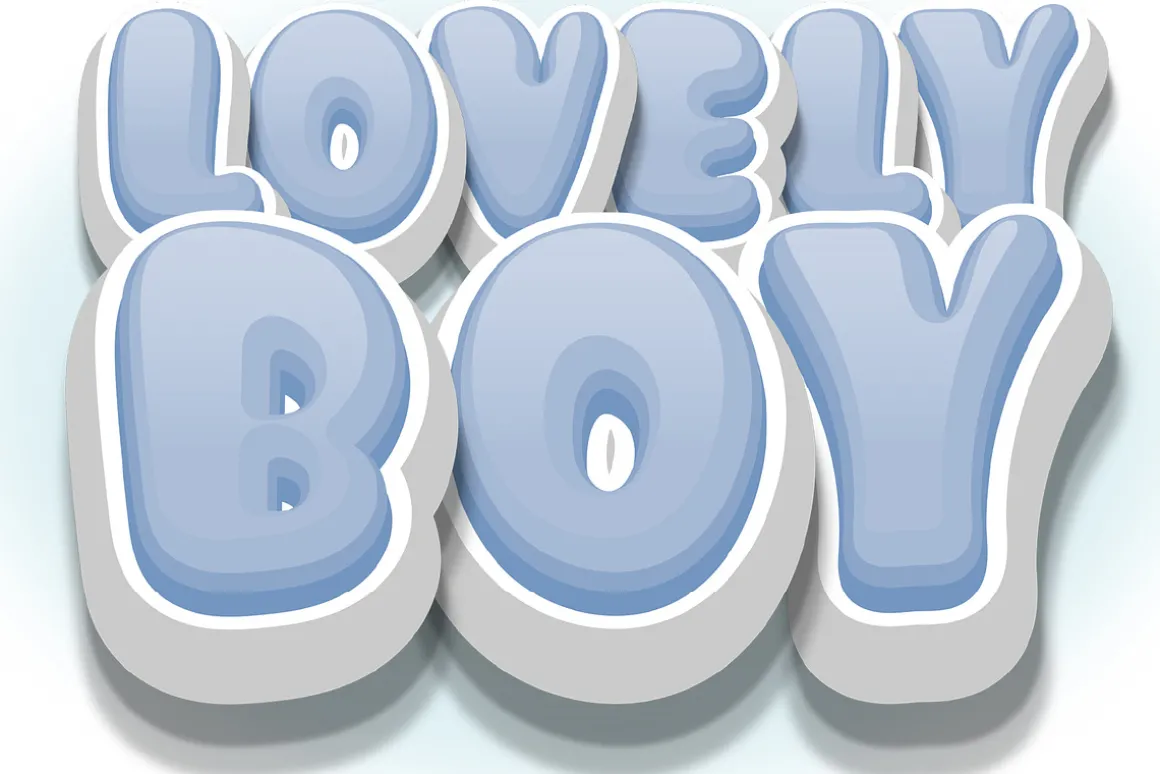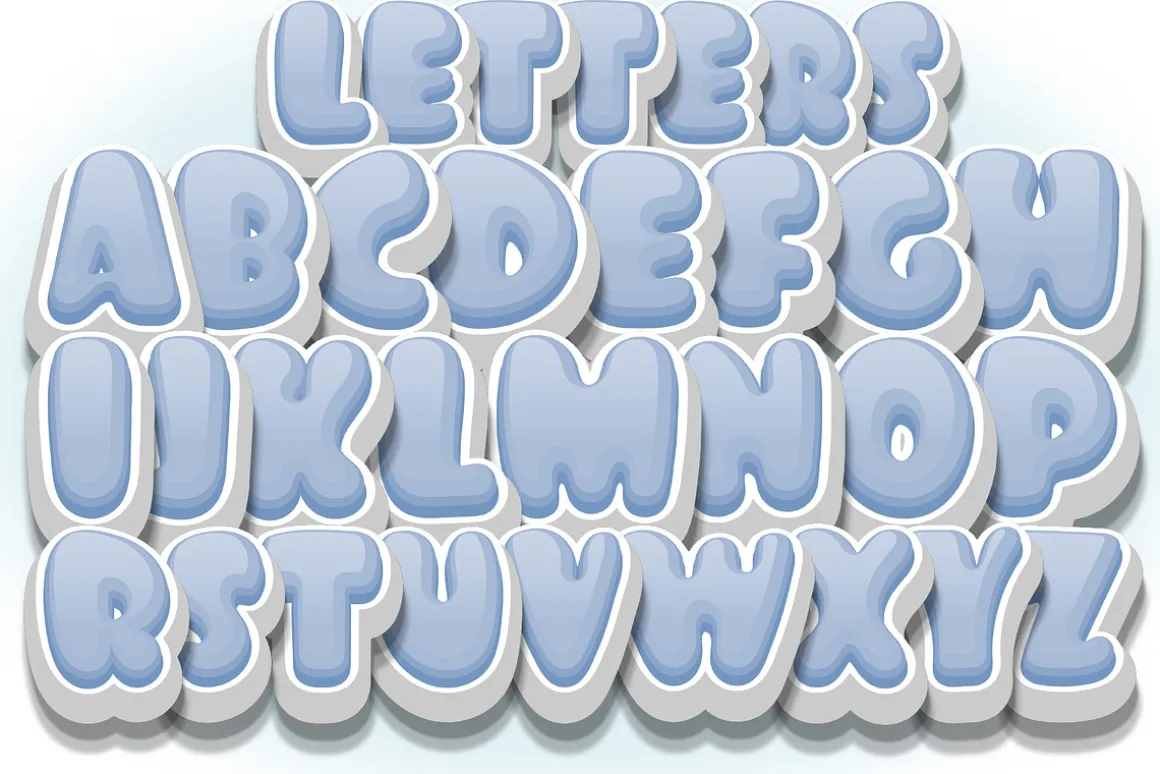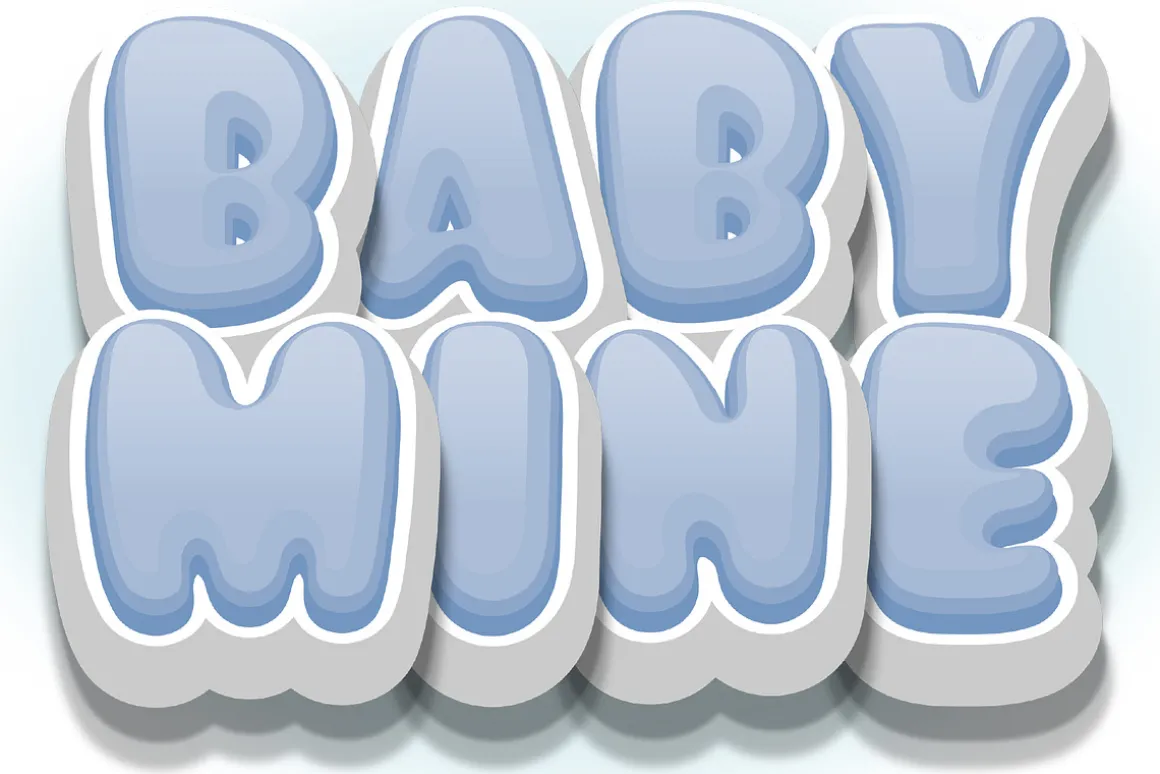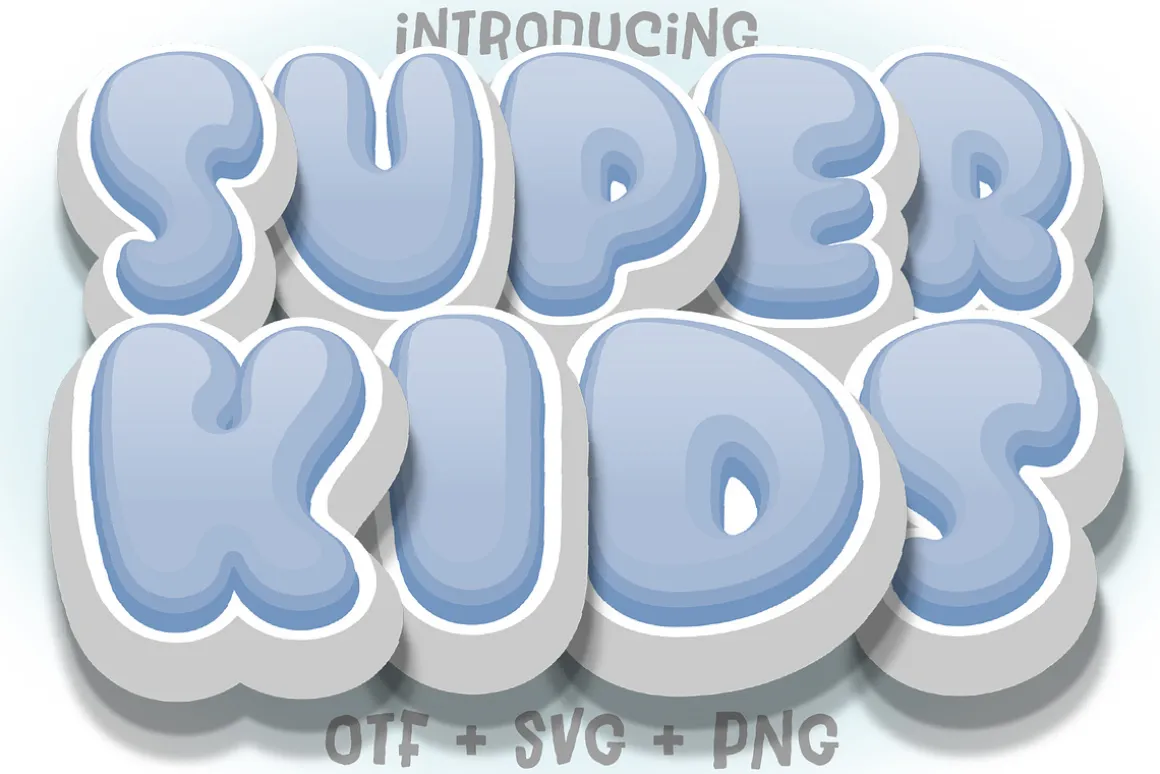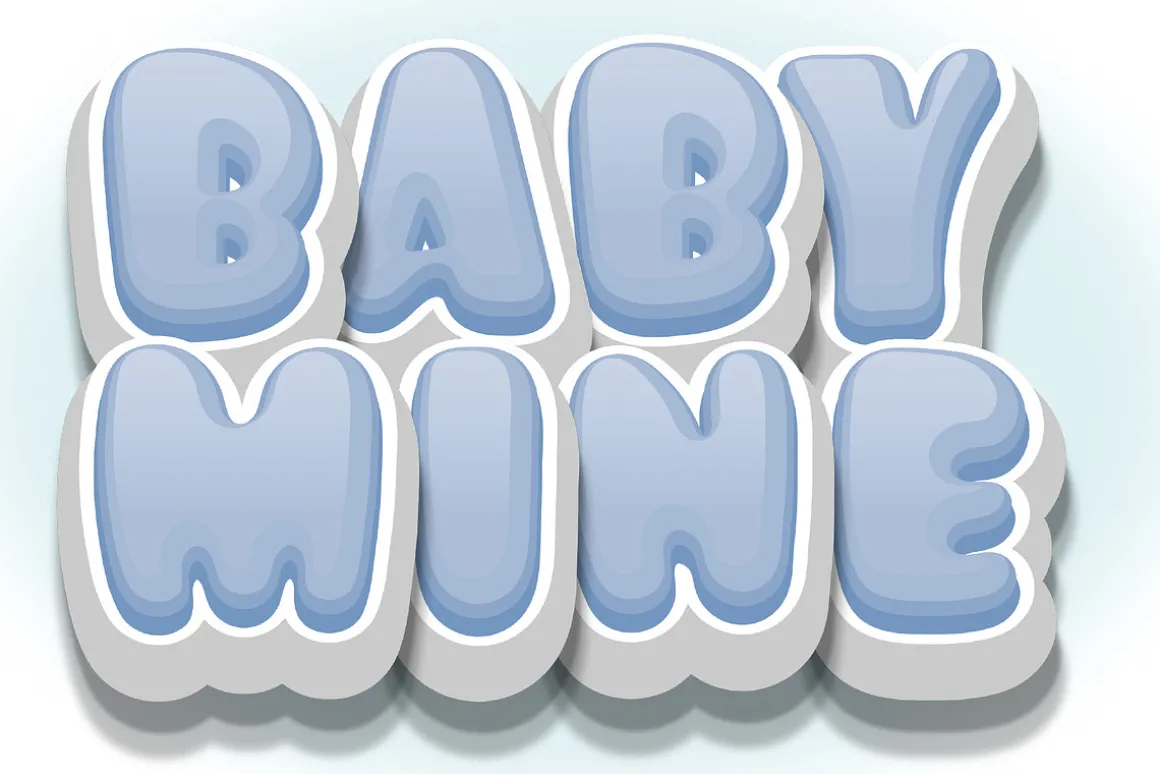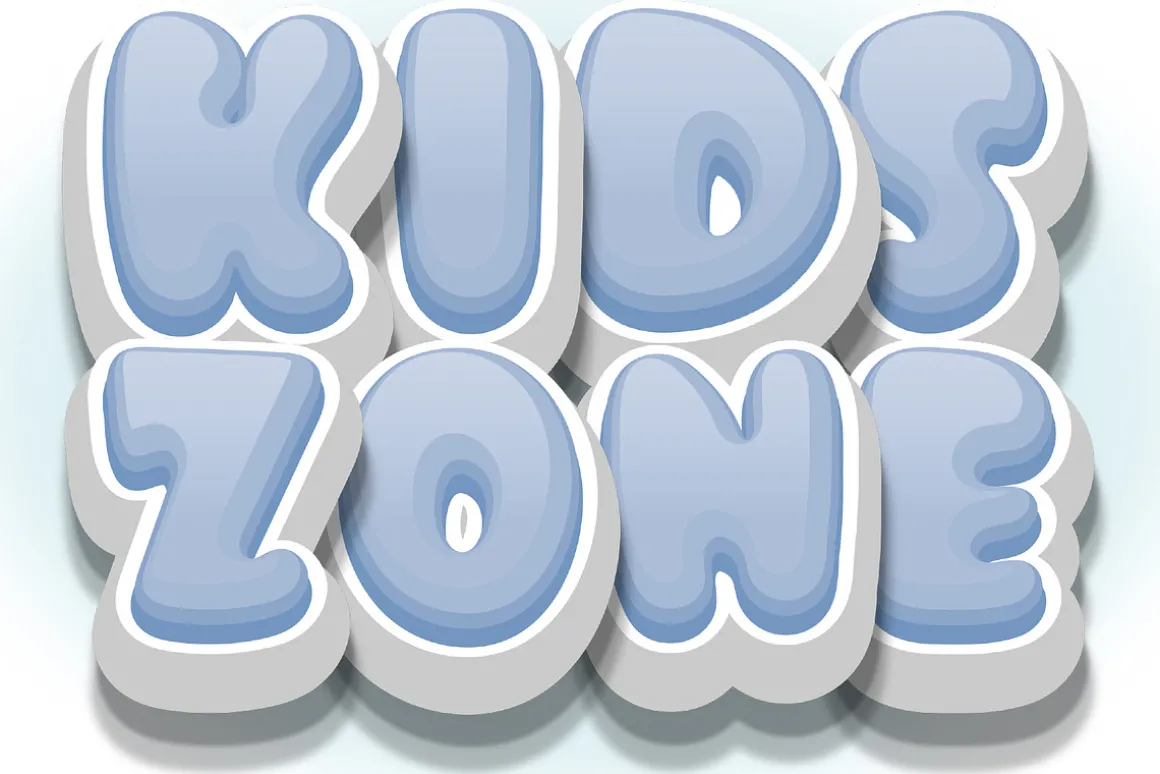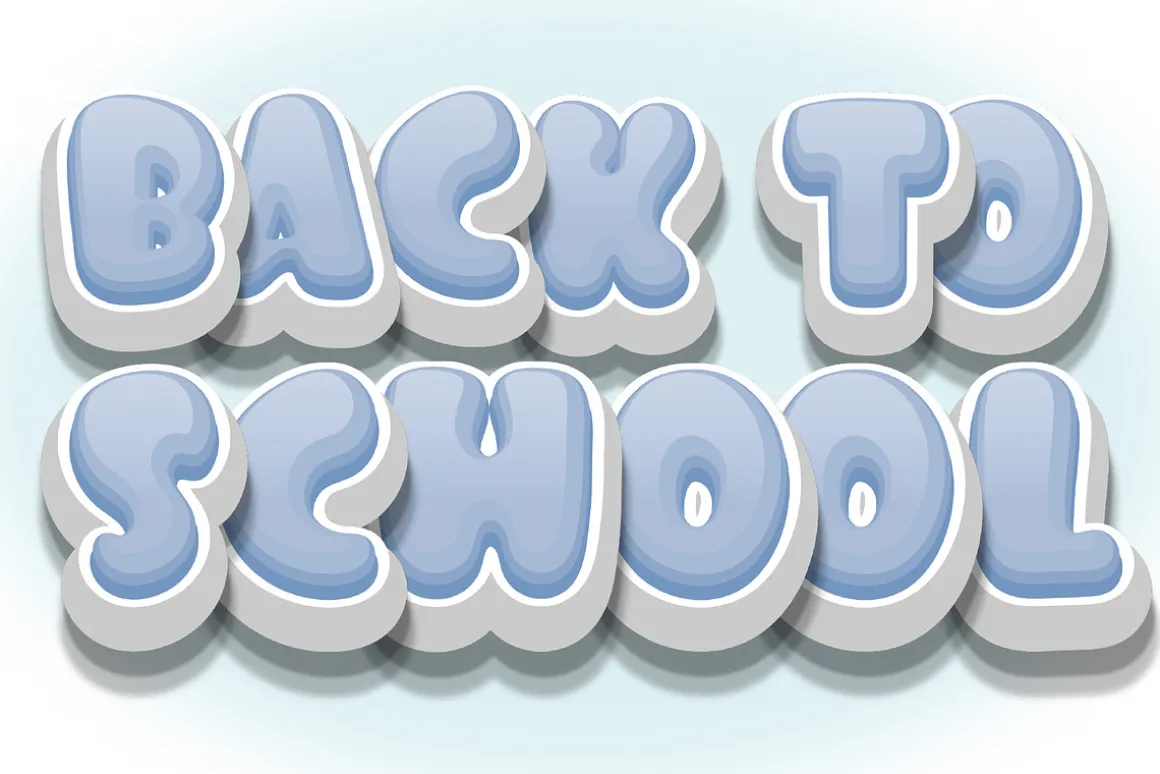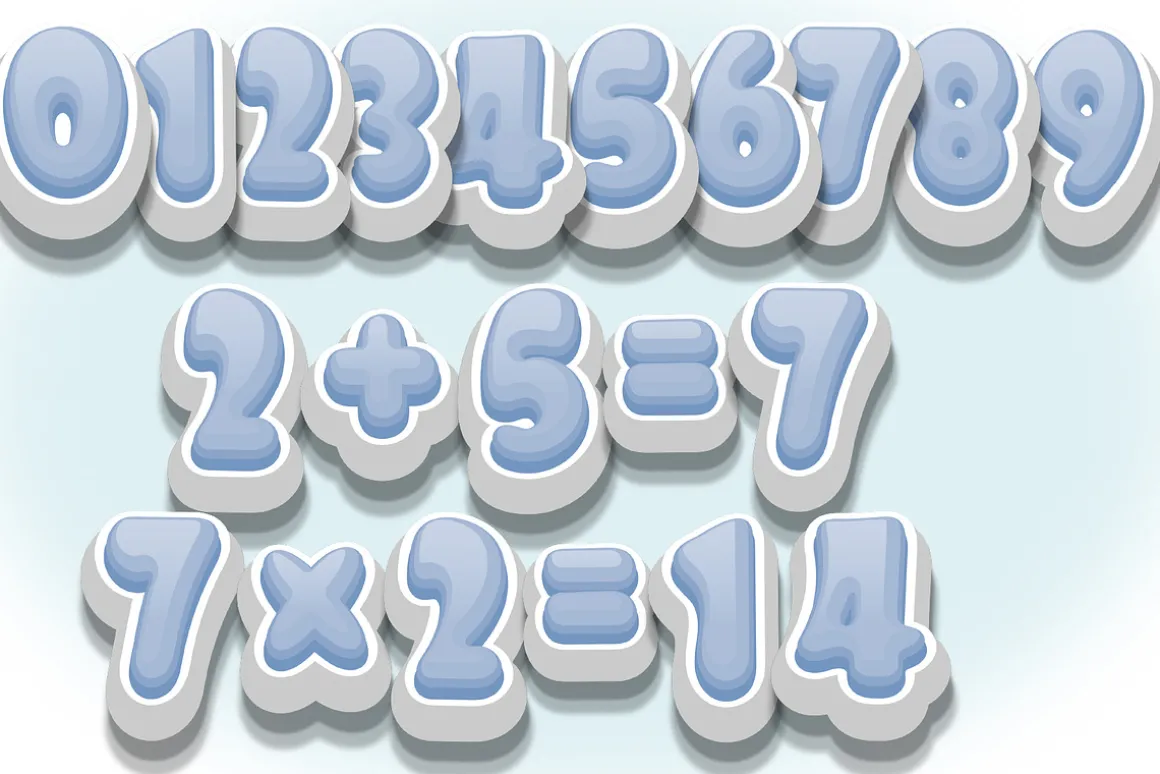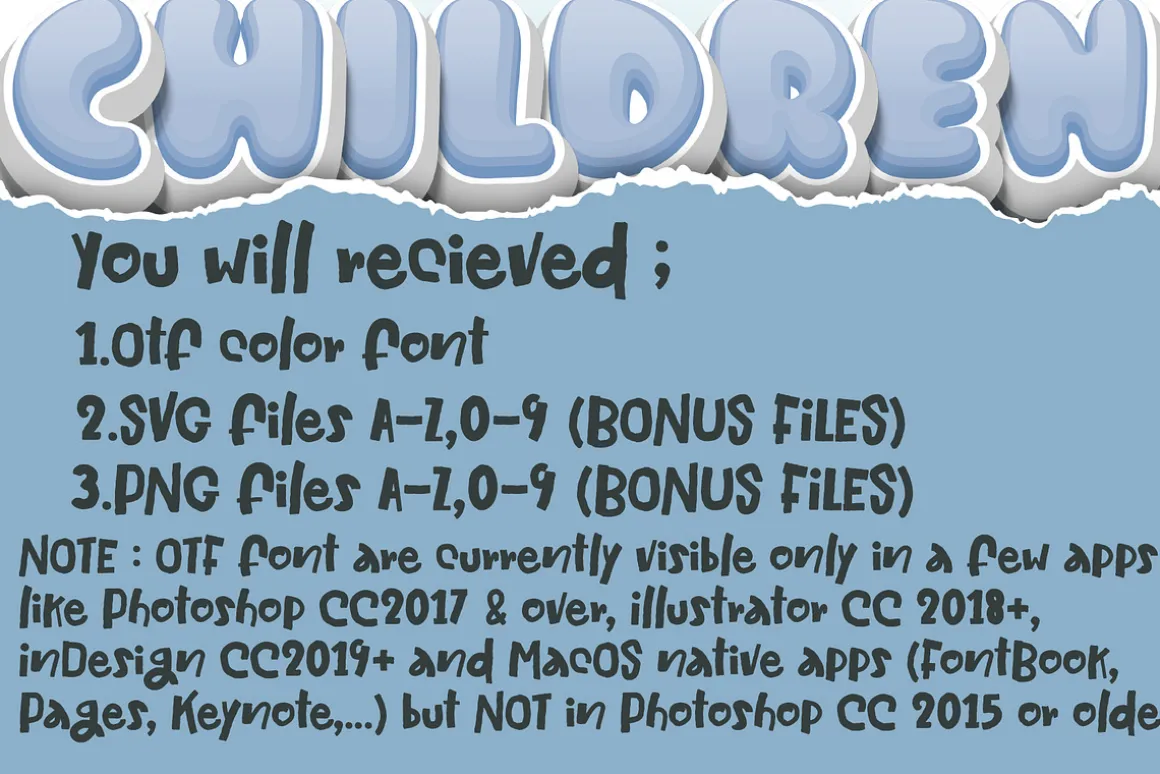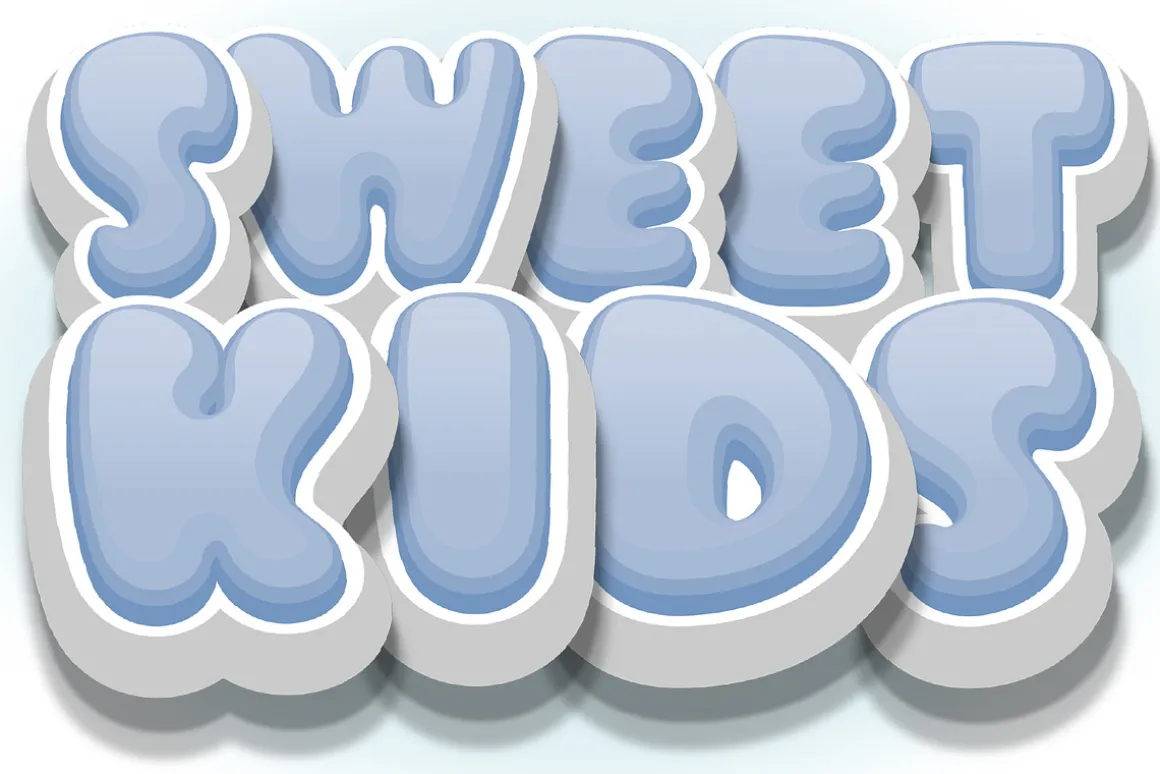
Super Kids – Bubble Blue font is a delightful and playful typeface that’s perfect for kids’ projects and children’s activities. This baby-cute bubble color font is designed to ignite the imaginations of young minds. Its whimsical, vibrant letters create a fun and friendly atmosphere, making it ideal for educational materials, storybooks, posters, and creative projects that captivate and inspire kids.